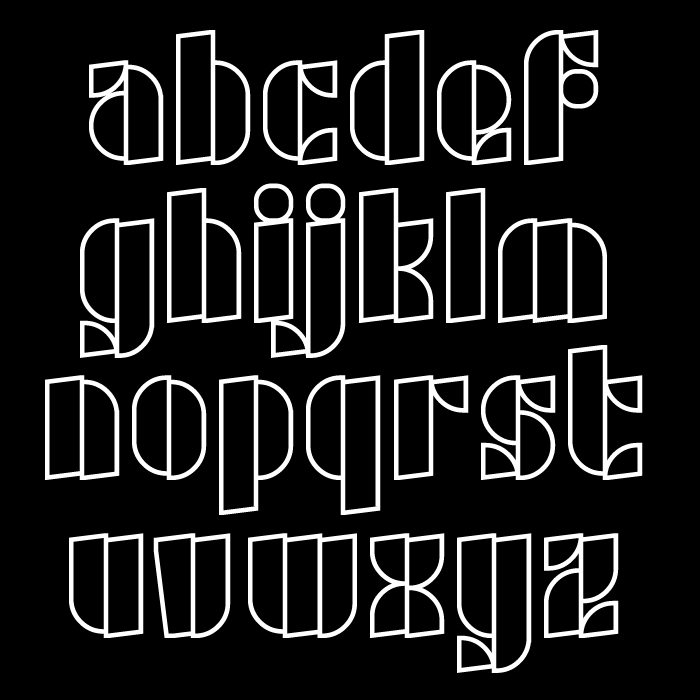
One thing: You seem to be undecided on the shape of the O, Q and U, when compared with the Ö and the lower case o. I think the latter makes the most sense, since the right segment starts lower than the left segment ends, which is in concordance with your other letters.
Amazing and dynamic stencil outline! 10/10 +fave
One thing: You seem to be undecided on the shape of the O, Q and U, when compared with the Ö and the lower case o. I think the latter makes the most sense, since the right segment starts lower than the left segment ends, which is in concordance with your other letters.
This curvy pseudo-italic font isn't hiding in the depths of any hinterland ;) Congratulations on the TP
Awesome font! You should extend this!